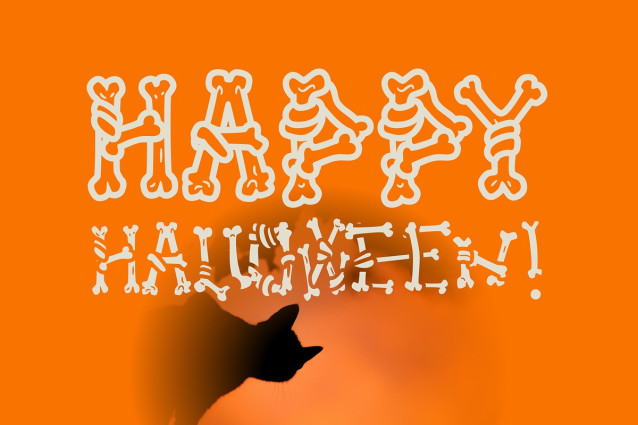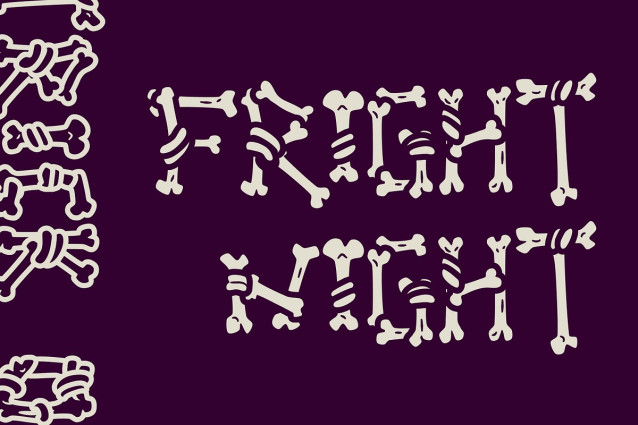
Ghoul Bone Font
Ghoul Bone Font a chilling touch to your Halloween designs with Ghoul Bones! This dual font and icon set offers endless possibilities for creating spooky and eye-catching graphics. From haunting posters to wicked invitations, let your creativity run wild with this bone-chilling typeface.